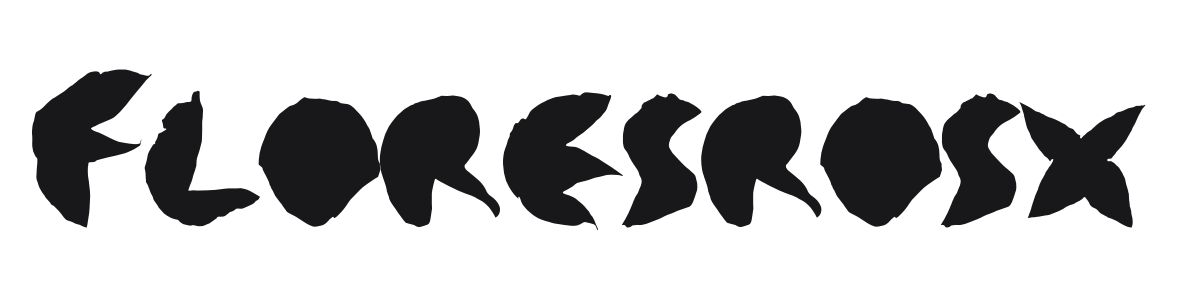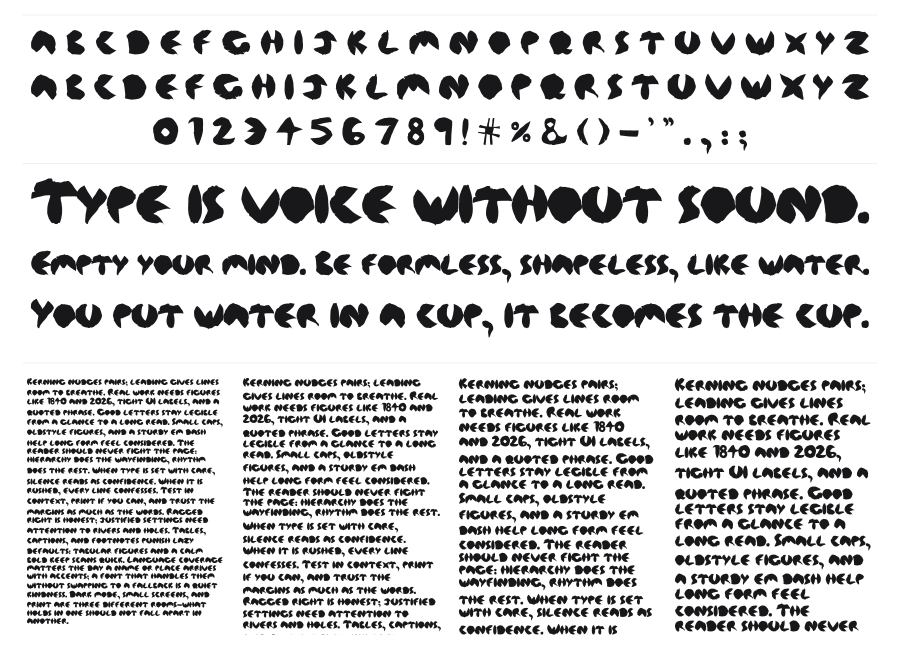
Floresrosx
Floresrosx is a display font hand-built from rose petals, where each character is a dense, rounded organic form with naturally irregular edges. The ultra-heavy weight and near-circular proportions give it an almost abstract quality, somewhere between bold type and botanical printmaking. It carries a handmade sincerity that works well in contexts where personality and texture matter more than legibility at small sizes.